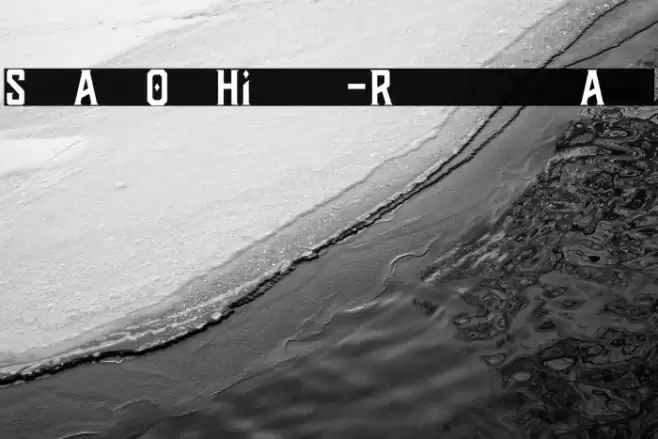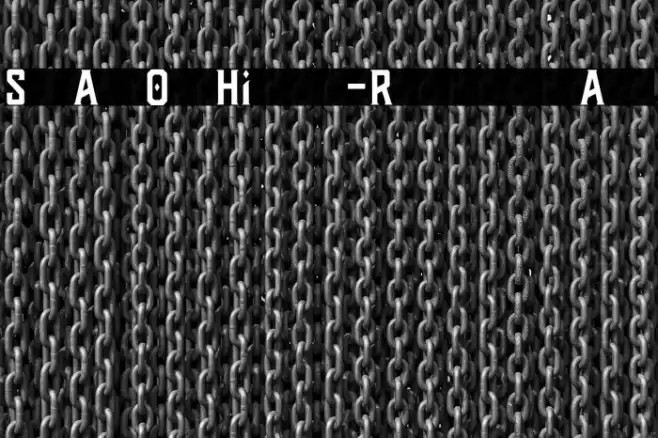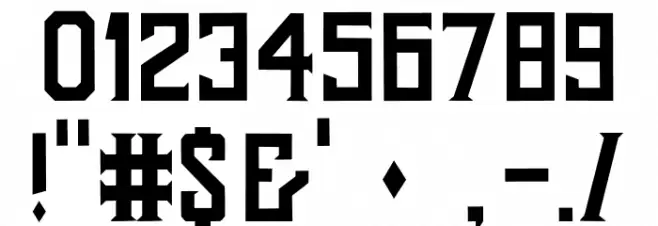
ShadowHill-Regular Font
ShadowHill-Regular Description
This font features a bold and striking design with a strong geometric influence. The characters are constructed with sharp angles and a consistent stroke width, giving it a robust and industrial feel. The uppercase letters are particularly prominent, with a uniform height and width that create a sense of stability and strength. The lowercase letters maintain the same angular style, ensuring cohesion throughout the typeface. The numerals are equally bold, with a design that complements the letters. Special characters are included, each crafted with the same attention to detail and geometric precision. This font is ideal for projects that require a bold and impactful visual presence.
A bold, geometric font with strong, angular characters from Regular fonts.